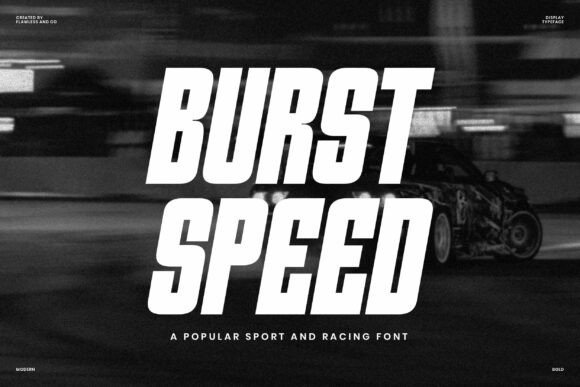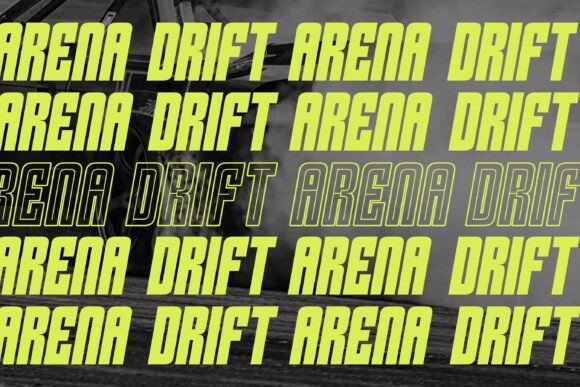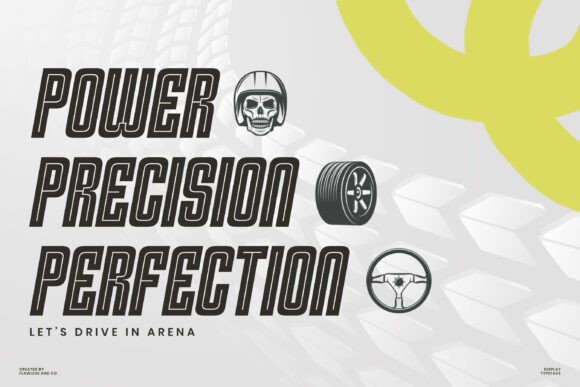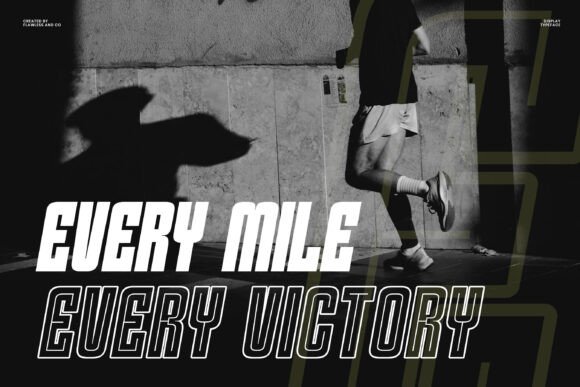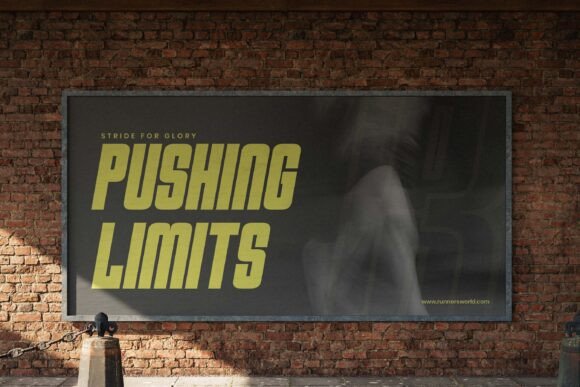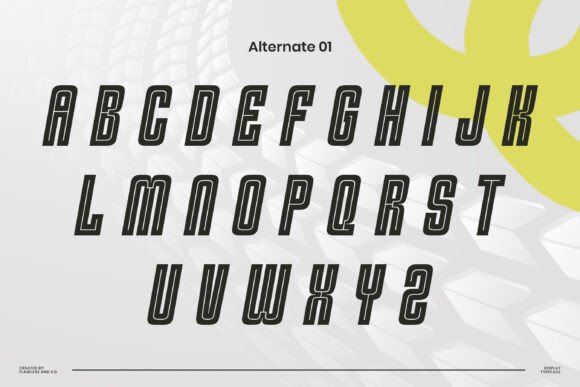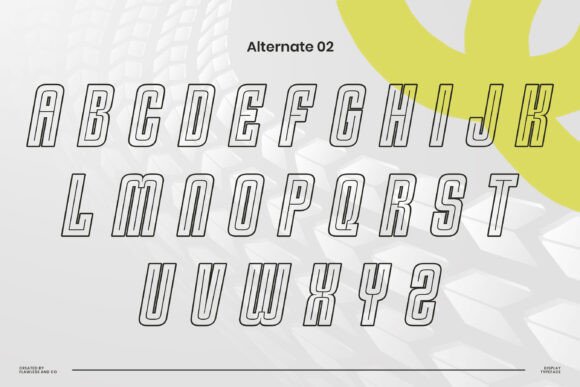
The Rush of Speed: Unleashing the Power of the Burst Speed Font
You’re in the zone, your creativity flowing like a high-octane fuel, as you design a racing poster for your favorite driver. The words “GO FASTER” leap off the page, and you know you’ve nailed it. This is the moment when typography comes alive, and the right font can take your design from good to great. Introducing the Burst Speed Font, a bold and aggressive sans serif typeface crafted to capture the energy and intensity of speed.
With its slanted angles and strong geometric build, the Burst Speed Font is perfect for designs that need to make a statement – from racing posters to esports graphics, and sporty apparel. Whether you’re designing for the speedway or the digital arena, this font will push your typography to the limit, giving you the edge you need to stand out from the crowd.
Burst Speed Font Key Features
- Font Family: Burst Speed Font is a sans-serif font family designed for speed and performance, making it ideal for digital displays and high-impact applications.
- Font Size and Resolution: Designed to be highly legible at small font sizes (down to 8pt) and resolutions (up to 300 DPI), making it suitable for digital displays and mobile devices.
- Unique Characteristics: Burst Speed Font features a unique blend of geometric and rounded shapes, creating a clean and modern aesthetic that enhances readability and visual appeal.
- Language Support: Supports a wide range of languages, including Latin, Cyrillic, Greek, and many others, making it a versatile choice for global applications.
- Font Weight and Style: Available in 6 weights (Thin, Light, Regular, Medium, Bold, and Black) and 3 styles (Regular, Italic, and Bold Italic), offering flexibility and customization options for designers.
Burst Speed Font Review
I’ve had the chance to work with the Burst Speed Font and I must say it’s an interesting choice. ✨ One thing that stands out is its unique, futuristic design. The font is perfect for anyone looking to add a touch of speed and dynamism to their project.
- ✨ The font’s bold lines and geometric shapes give it a modern and edgy feel.
- ✨ It’s highly customizable, allowing you to adjust the font’s size, color, and spacing to fit your needs.
- ✨ The font is also highly legible, making it suitable for both digital and print use.
- ⚠️ The font may be too bold or overwhelming for some projects, so use it sparingly.
- ⚠️ Some users may find the font’s futuristic design to be too gimmicky or unprofessional.
Overall, I think the Burst Speed Font is a solid choice for anyone looking to add some excitement to their project. While it may not be for everyone, it’s definitely worth considering for its unique design and high level of customization.
Tips for Getting the Most Out of the Burst Speed Font
Use the Burst Speed Font for headings and titles to create a bold and dynamic visual effect.
Combine the font with other fonts for a unique and creative look.
Experiment with different font sizes and colors to create contrast and emphasis.
Use the Burst Speed Font for:
Headings and titles in marketing materials, such as brochures and posters.
Blog post titles and headings.
Business card designs and other marketing materials.
Alternatives to “Burst Speed Font” for Designers
1. Arial Black
Arial Black is a sans-serif font that is similar to “Burst Speed Font” in its bold and modern design. It is suitable for use in headings, titles, and other areas where a strong, attention-grabbing font is needed. Compared to “Burst Speed Font,” Arial Black is more commonly used and widely available, making it a great alternative for designers who need a similar look but don’t have access to the specific font.
2. Impact
Impact is a sans-serif font that is designed to be bold and attention-grabbing. It is often used in titles, headings, and other areas where a strong, dramatic font is needed. Compared to “Burst Speed Font,” Impact is more dramatic and attention-grabbing, making it a good choice for designers who want to make a statement. However, it may be less versatile than “Burst Speed Font” in terms of its overall design and feel.
Q: What is the recommended font size for using Burst Speed Font?
The recommended font size for Burst Speed Font is between 24-48 points. This size range ensures optimal legibility at high speeds and in low-light conditions. However, font size can be adjusted to suit the specific needs of your project.